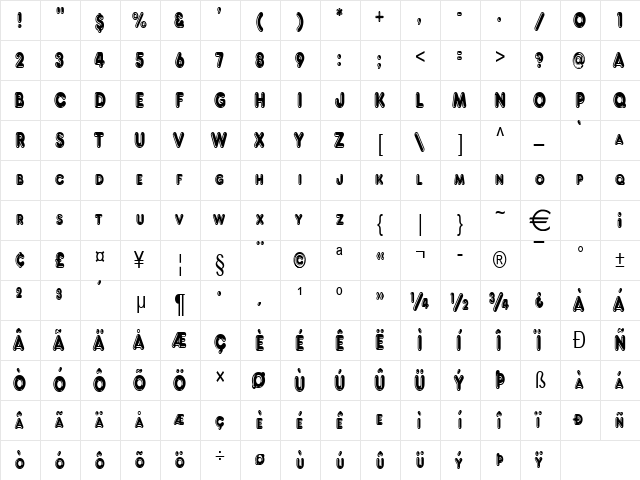
FrancisHighLightedCondensed Normal
Design Context for FrancisHighLightedCondensed Typeface
FrancisHighLightedCondensed is a composed and adaptable typeface that performs quietly and consistently across a wide range of design contexts. Its slender proportions lend an understated elegance to any composition. Its narrow stance lets it pack a punch even in space-constrained designs.
Pro Tip: Use FrancisHighLightedCondensed in both headline and body roles to test its range before committing to a single application.